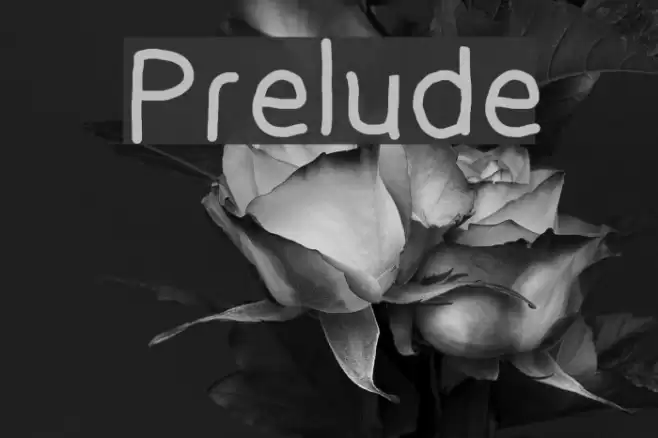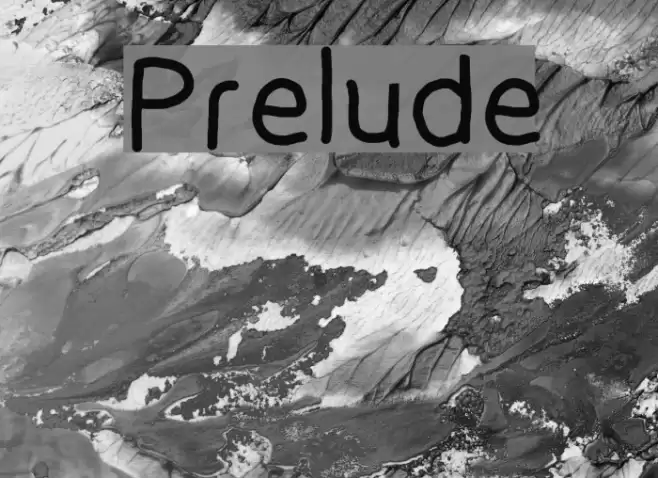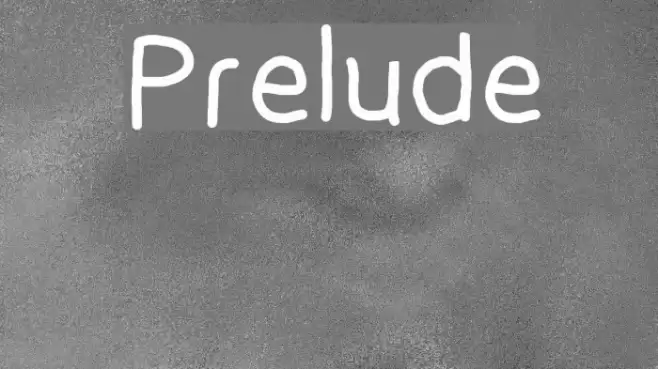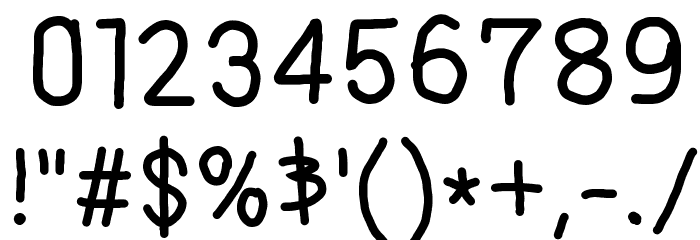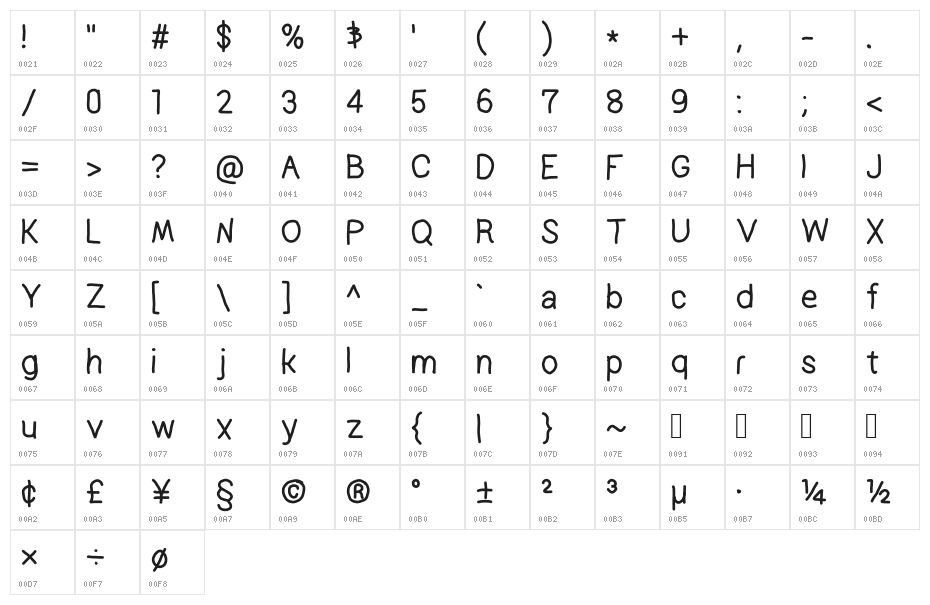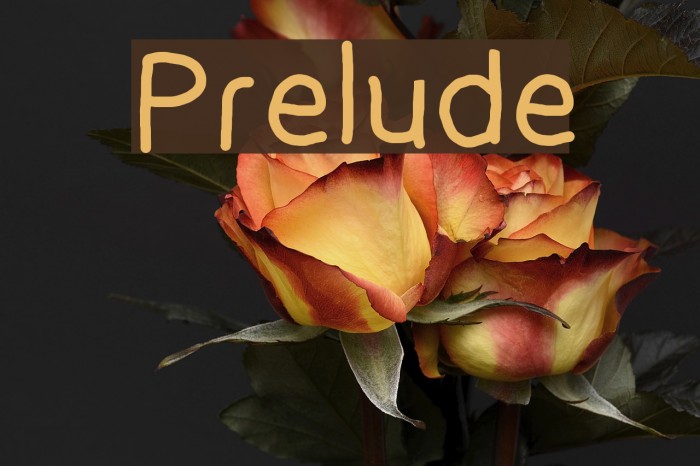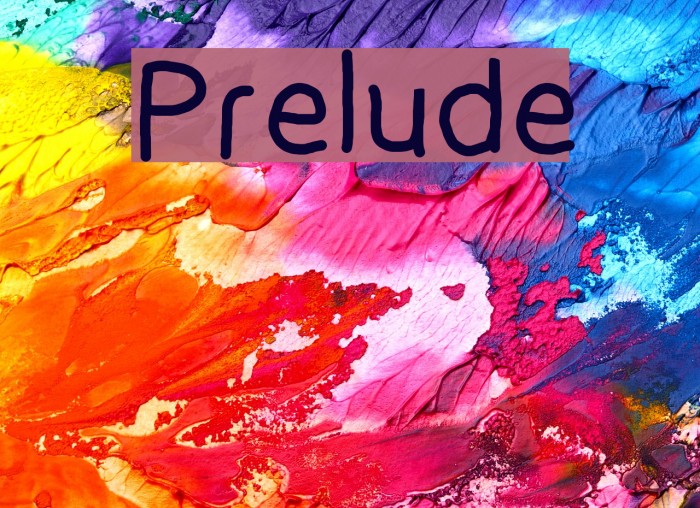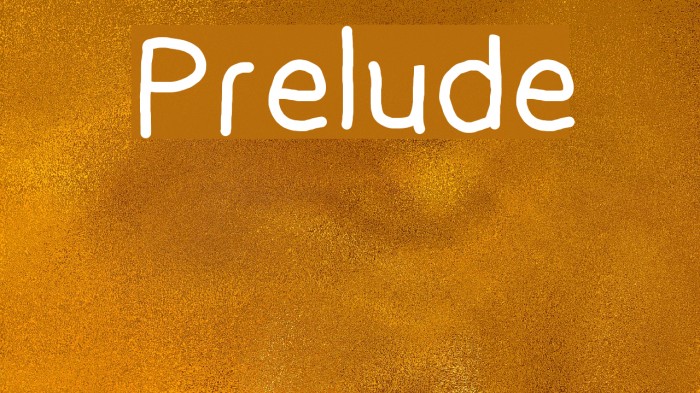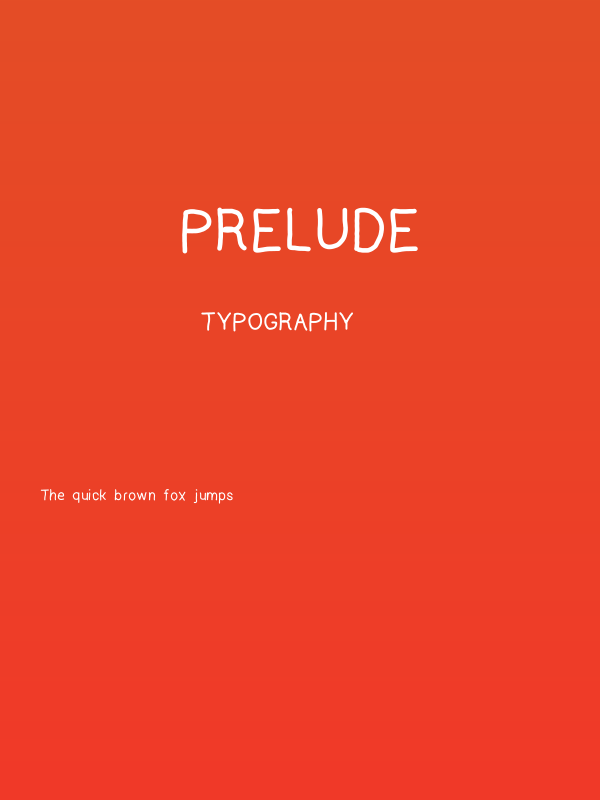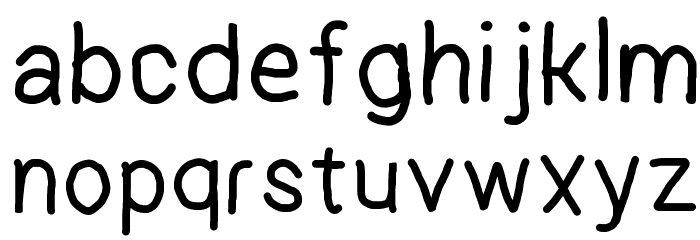
Prelude Font
Prelude Description
This font features a playful and casual handwritten style, characterized by its rounded and slightly irregular letterforms. The uppercase and lowercase letters maintain a consistent flow, with a natural and approachable appearance. The numerals and special characters follow the same informal aesthetic, making the font suitable for projects that require a personal touch. The strokes are uniform in thickness, providing a balanced and cohesive look across all characters. This font's charm lies in its simplicity and the subtle imperfections that mimic authentic handwriting.
A playful, handwritten font with rounded, informal letterforms from Uncategorized fonts.
- Proposed Projects: Ideal for children's books, greeting cards, personal blogs, and informal branding.
- Overall Style: Casual
- Use Case: Headlines, Informal text, Personal projects